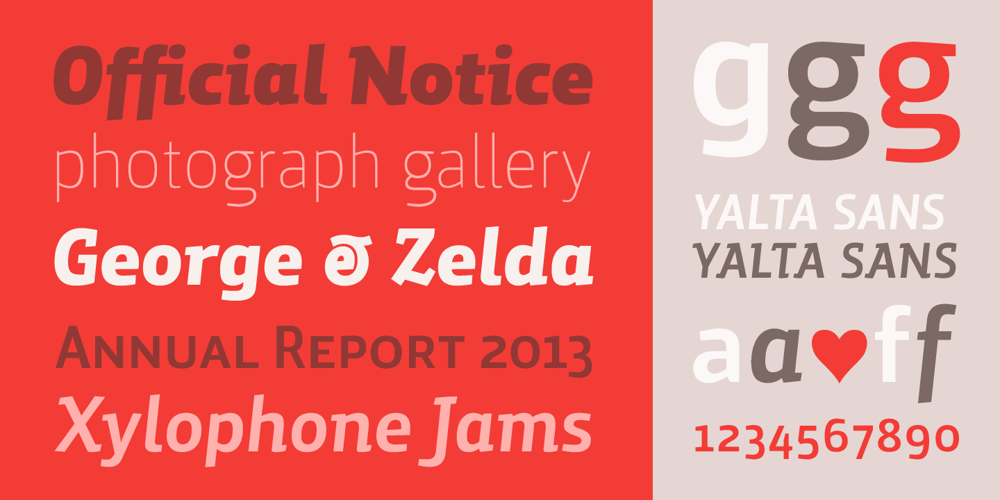
Yalta Sans Font Family was designed by Stefan Claudius and published by Linotype. Yalta Sans contains 16 styles and family package options. Yalta Sans combines the warmth of a traditional humanist design, the clarity of a grotesque and the modernity of a square sans. Several design traits contribute to this melding of diverse typographic concepts. Characters find their foundation in stroke-based shapes rather than constructed forms. Curve stokes are also slightly squared and counters are open. Curved strokes join verticals at nearly right angles to create a strong horizontal stress, aiding the reading process. The resulting design is exceptionally legible while still inviting.Although Yalta Sans is clearly differentiated from its calligraphic ancestors, many details of the design emulate the distinctive characteristics of typefaces from the Renaissance. Tapering horizontal stokes also give Yalta Sans a dynamic relationship with linear grotesque while its angled stroke terminals echo the work of a calligraphic brushYalta Sans italics are cursive designs that are in keeping with humanistic letterforms and are markedly narrower than the Roman characters. Lining and old style figures, small caps and a suite of ligatures also make for a remarkably versatile typeface family.